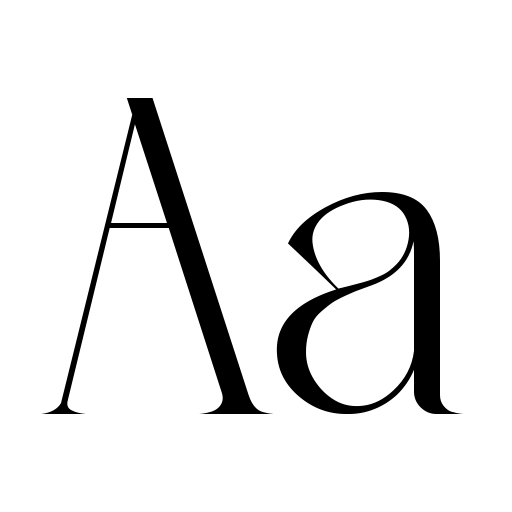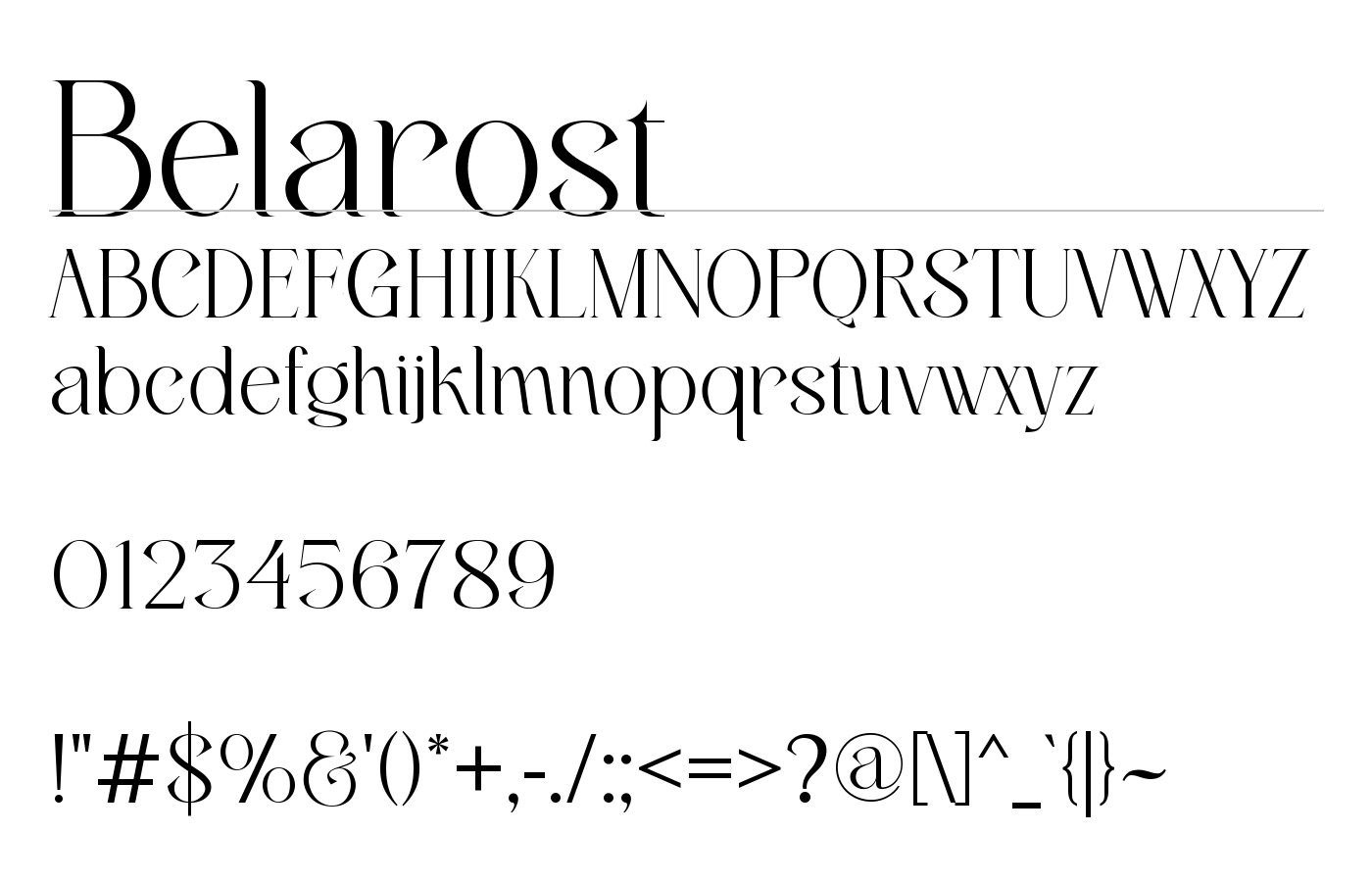
Belarost is a refined serif font with high contrast between thick and thin strokes, featuring elegant, slender letterforms and subtle, sharp serifs that create a sophisticated, modern look. Its tall x-height and delicate curves lend a stylish, upscale feel, making it ideal for luxury branding, editorial headlines, and fashion-focused design where a graceful and distinctive appearance is desired. This font works best in larger sizes, where its fine details can shine and enhance a polished, elegant identity.
Belarost Font
About Belarost Font